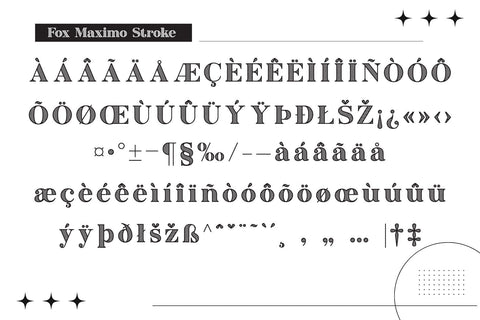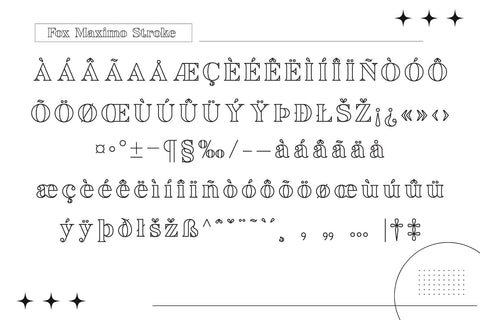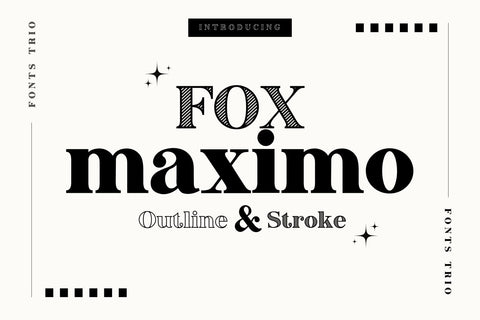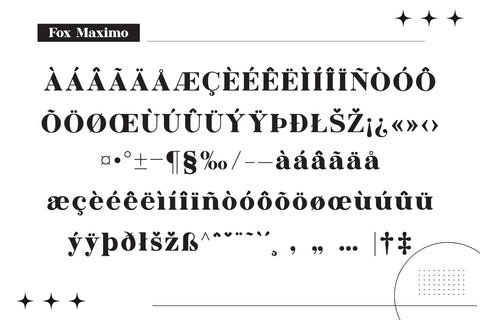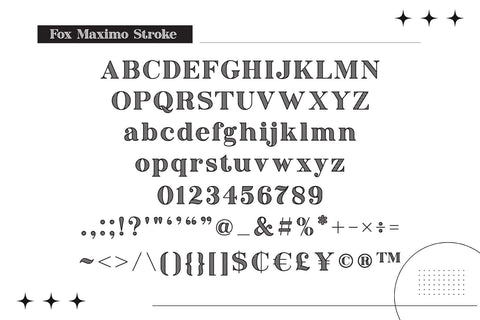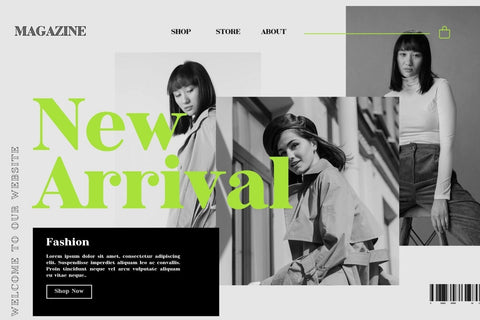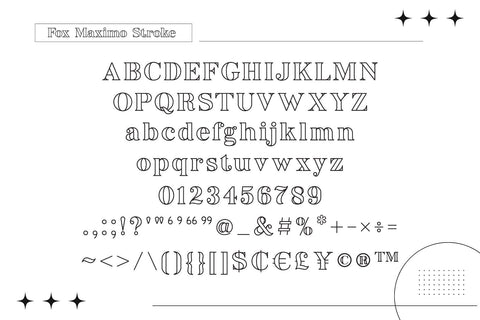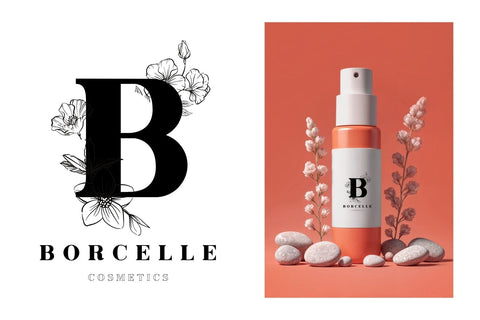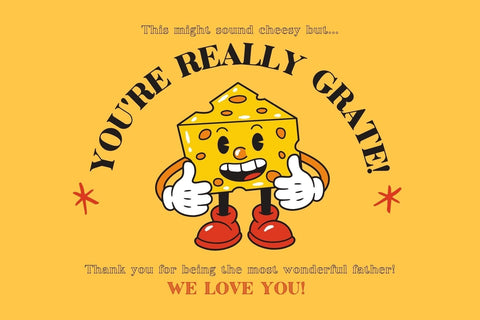
Fox Maximo Font Trio
Fox Maximo is a versatile font with 3 modern and beautiful styles. It is compatible with both contemporary and vintage design aesthetics. You can use it for various projects, including blog posts, logos, branding, advertisements, invitations, greeting cards, planners, photo albums, decorations, and much more.